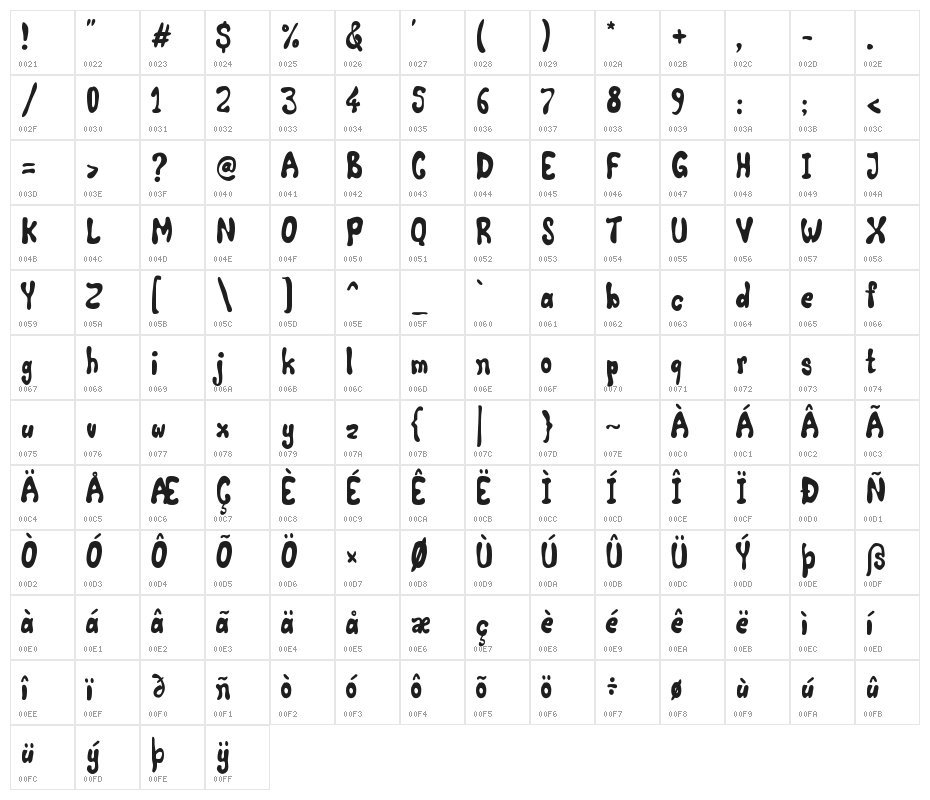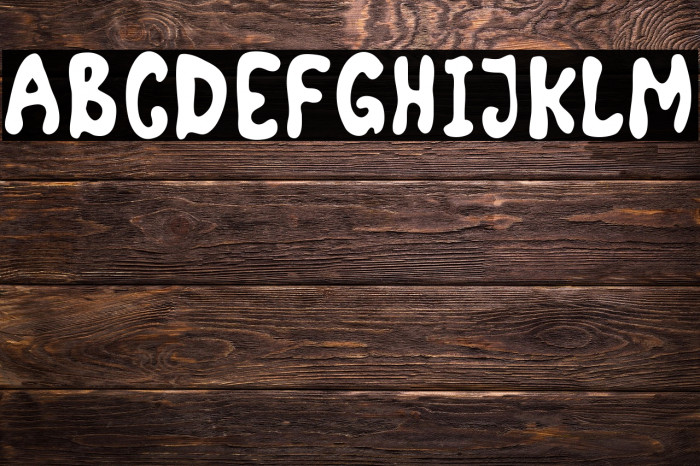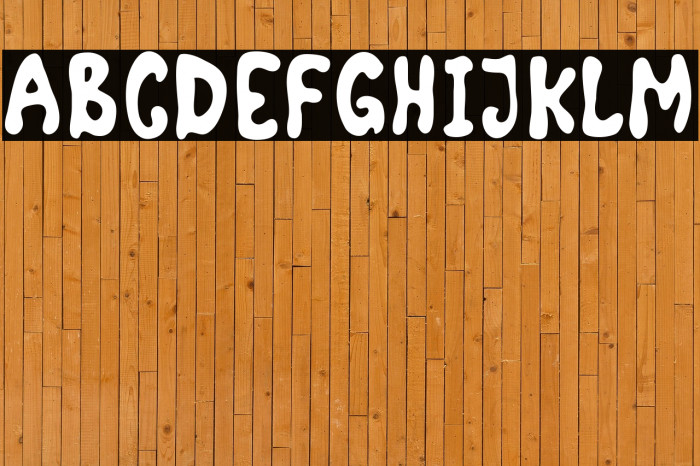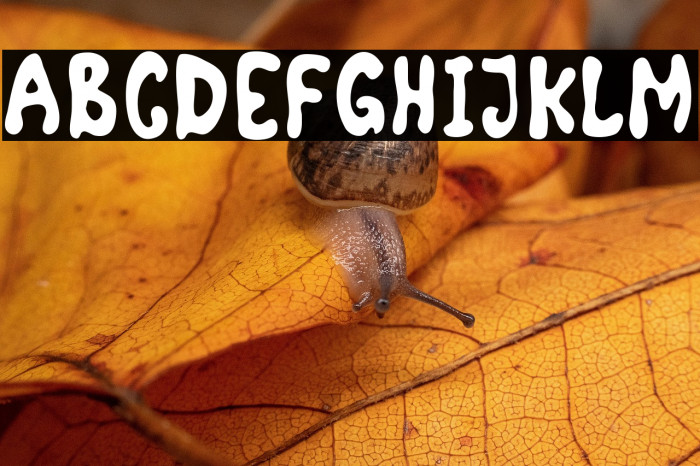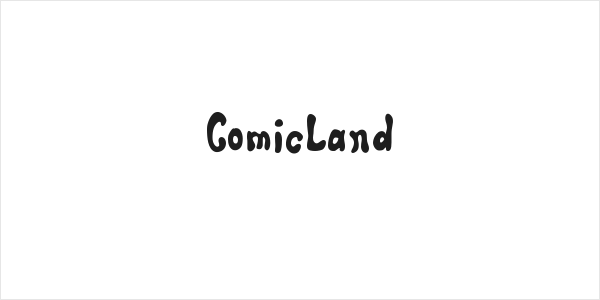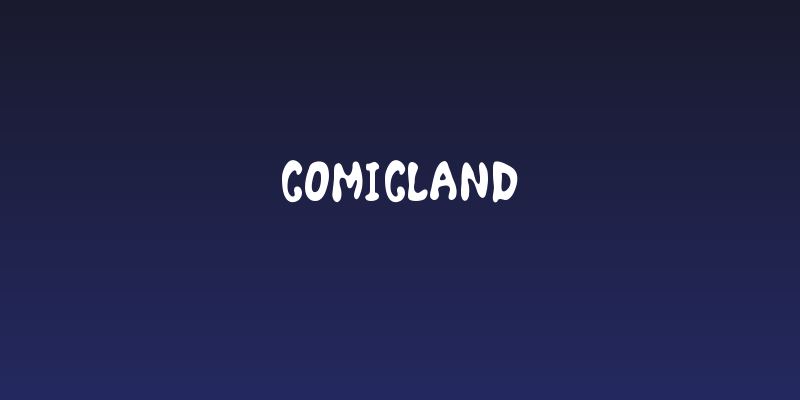
ComicLand Font
ComicLand Description
This playful and whimsical font features bold, rounded characters with a hand-drawn appearance. The letters have a slightly irregular shape, adding to their charm and informal style. The uppercase and lowercase letters maintain a consistent thickness, while the numbers and special characters follow the same playful design. The font exudes a sense of fun and creativity, making it ideal for projects that require a lighthearted and approachable feel. Its boldness ensures readability, while the unique character shapes provide a distinctive look.
| Overall Style | Whimsical |
| Proposed Projects | Ideal for children's books, comic strips, playful branding, and creative posters. |